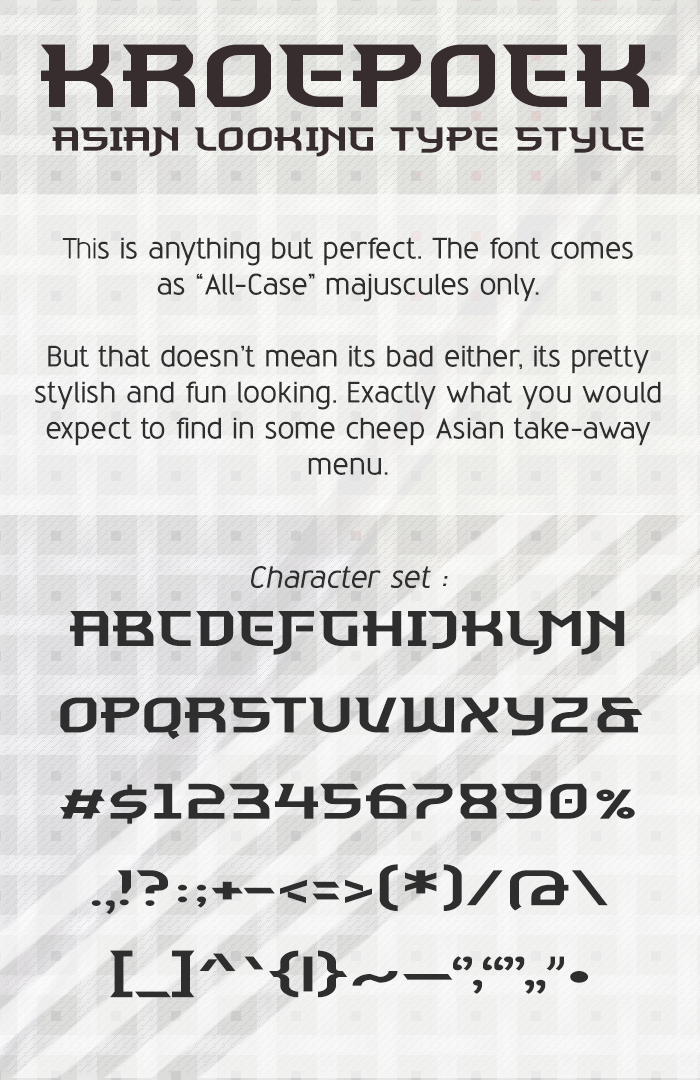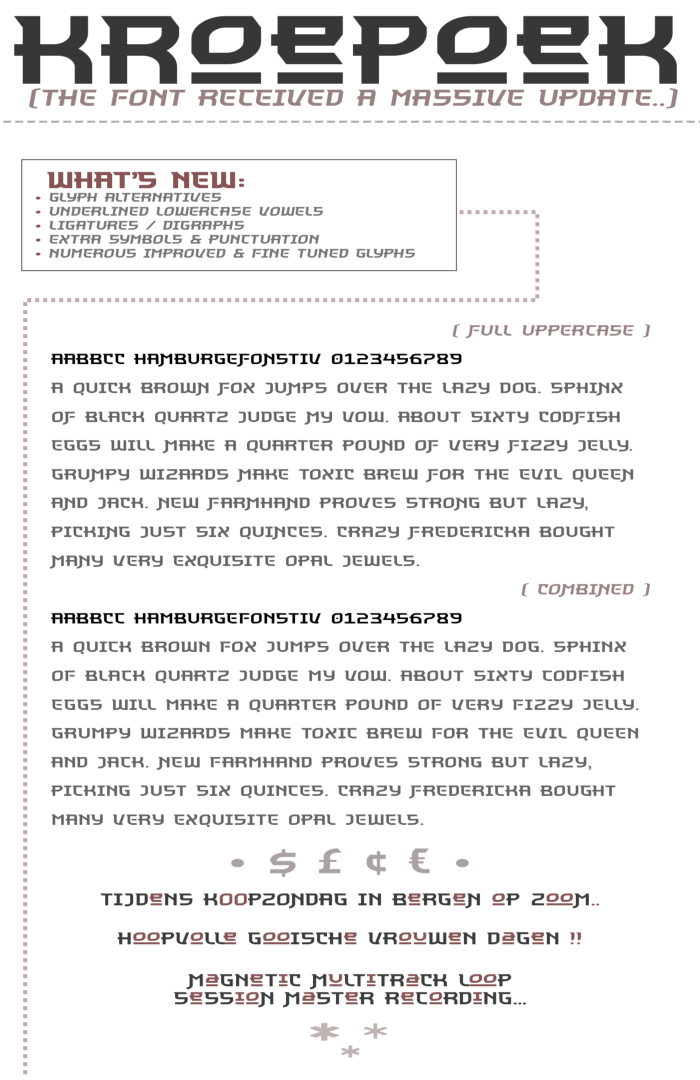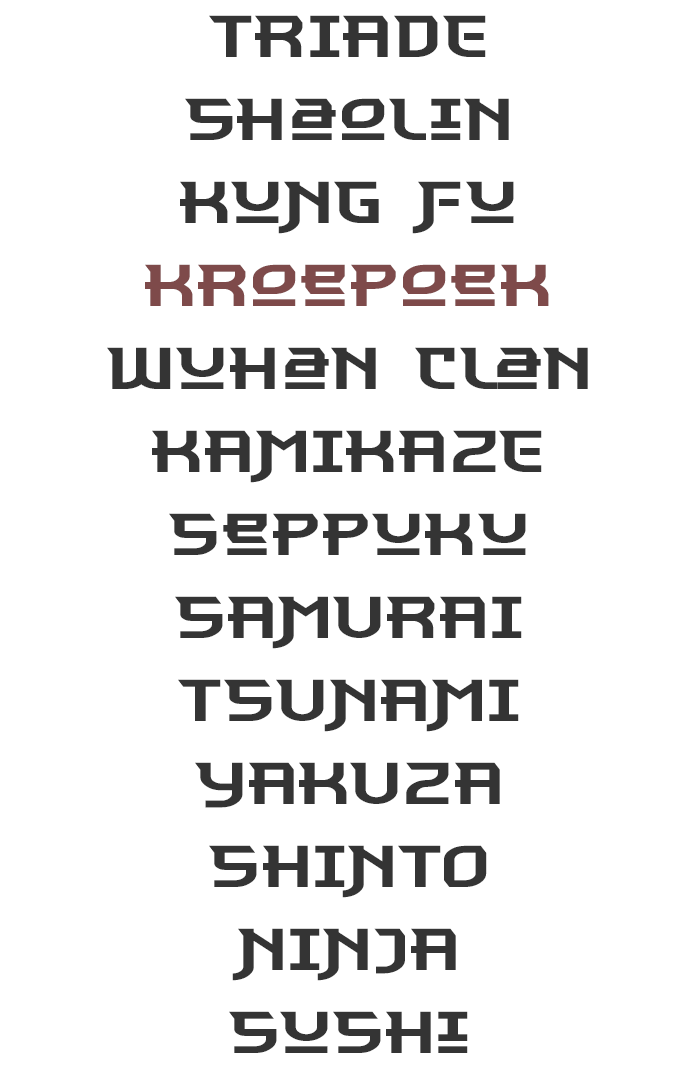
• KROEPOEK - Letterforms influenced by the orient.
Simple geometry based design that tries to imitate Asian style letterforms.
The font comes as a "all-caps" (majuscules) with the lowercase string used to include a set of glyph alternatives for the uppercase set, but cutting the descending parts of the glyphs.
As a little bonus, a set of underlined lowecase vowel alternatives (a, e, i, o, u and y) was also included to allow a small level of personal depth. These can be found in the Unicode block for: 'Halfwidth and Fullwidth Forms'
Besides the letters there is also a set of essential punctuation and symbols present to make the font proper functional.
-- [Big Update] --
What’s new:
• Glyph alternatives
• Underlined lowercase vowels letters
• Ligatures / Digraphs
• Extra symbols & punctuation
• Numerous improved & fine tuned glyphs
Yes. I don't usually like underlined letters, but I have to admit that they adapt very well to the font.
@elmoyenique: Ah cool, well for me it depends on wether they fit the rest of the font obviously, and how they get applied stylistically in typography. It's easy to over-use underlined letters in a design, or section of text. And they should only be considered being used in short complimentory fashion to spice up and enhance specific words or a phrase. And shouldn't be used throughout large portions of type-set materials.